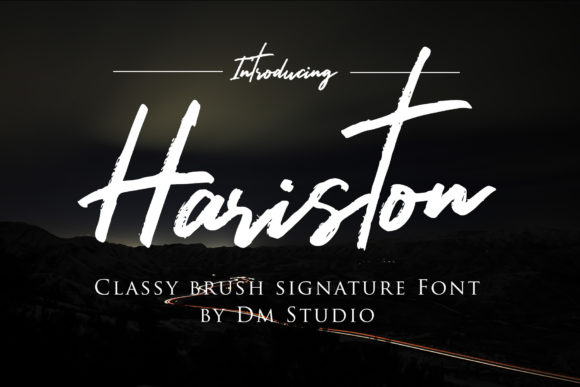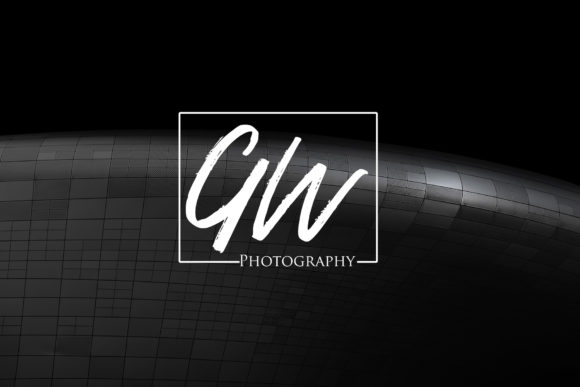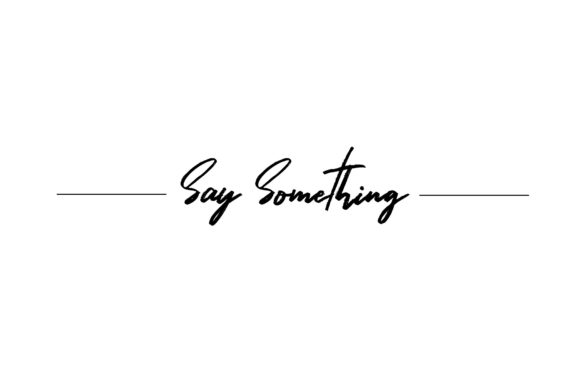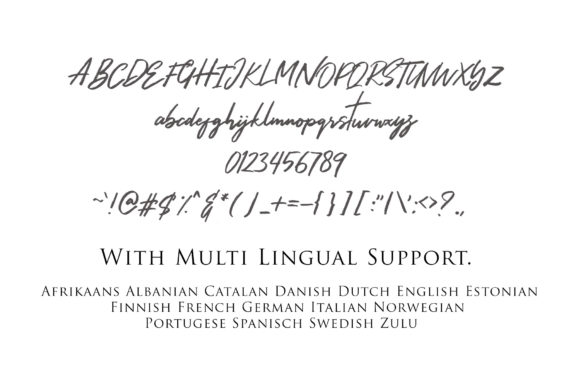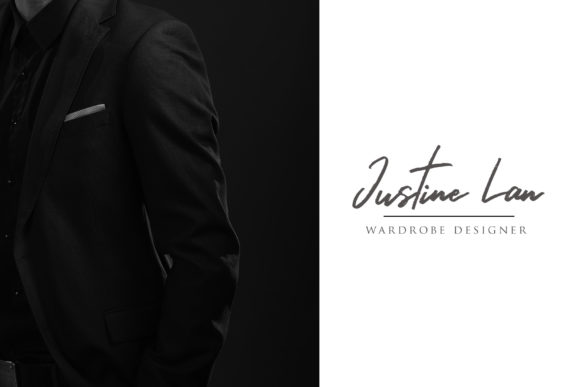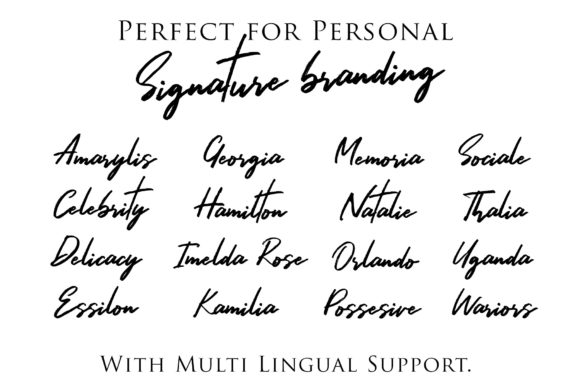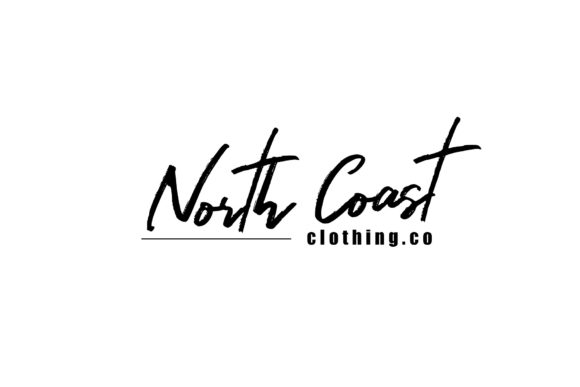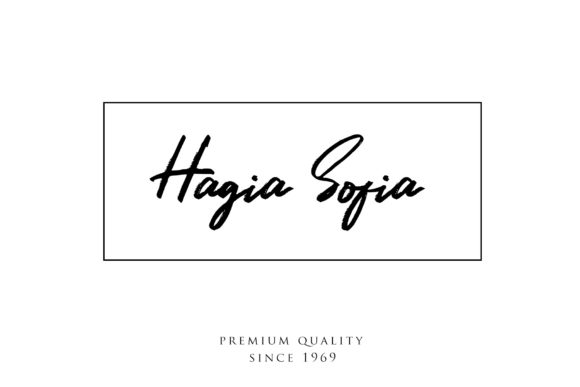
Hariston Font
About Hariston Font
Hariston is a casual and light handwritten font with a smart feel. It will add a unique charm to any design project.